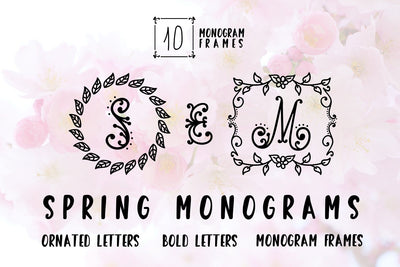
Spring Monogram
Spring Monogram decorative font with frames.
The Spring Monogram font is a clean handlettered display type,beautiful, elegant and feminine, great for crafting.
The font comes in 1 Styles: Monogram. The style contains uppercase, lowercase, numbers & and 10 monogram frames. It has no punctuation! This is part of Spring Season font that you can find here
To create a monogram, create two texts, in one the letter you want, decorated or bold and in the other add the frame monogram . Then arrange them as you like and that s it!